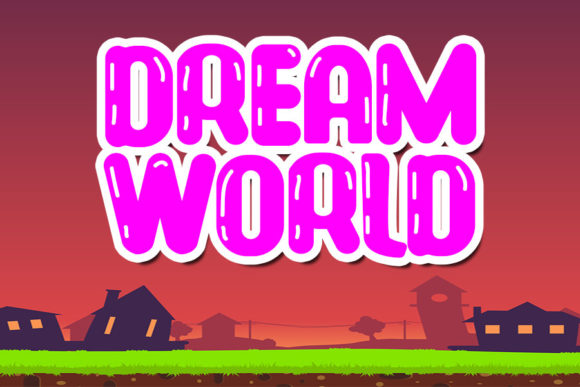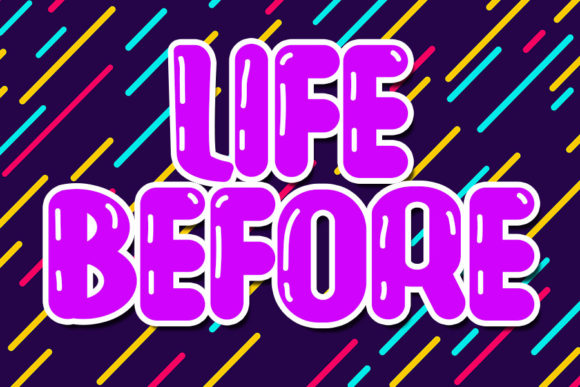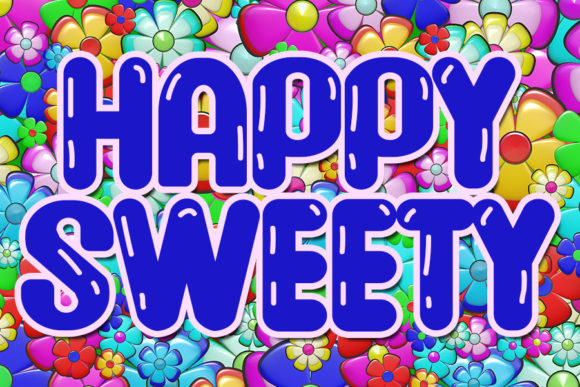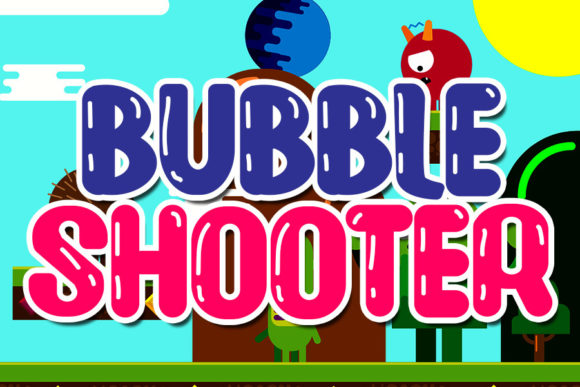
Bubble Shooter Font: The Perfect Addition to Your Fun and Playful Designs
Are you looking for a font that can add a touch of youth and joy to your designs? Look no further than the Bubble Shooter Font! This cute, fun, and friendly display font is perfect for party invitations, swimming gatherings, and any other design that requires a playful twist.
What is Bubble Shooter Font?
Bubble Shooter Font is a unique and creative typeface that is designed to bring a smile to your face. Its playful and bubbly design makes it perfect for designs that require a fun and youthful touch. The font is carefully crafted to ensure that it is easy to read and understand, making it perfect for use in a variety of designs, from party invitations to posters and flyers.
Features of Bubble Shooter Font
The Bubble Shooter Font has several features that make it a great addition to your design toolkit. Some of its key features include:
• Cute and playful design: The font has a unique and playful design that is sure to grab attention and bring a smile to your face.
• Easily readable: The font is carefully crafted to ensure that it is easy to read and understand, making it perfect for use in a variety of designs.
• Fun and youthful vibe: The font has a fun and youthful vibe that makes it perfect for designs that require a playful twist.
• Perfect for party invitations: The font is perfect for use in party invitations, swimming gatherings, and any other design that requires a touch of youth and joy.
Uses of Bubble Shooter Font
The Bubble Shooter Font is a versatile typeface that can be used in a variety of designs. Some of the most popular uses of the font include:
• Party invitations: The font is perfect for use in party invitations, birthday cards, and other celebratory designs.
• Swimming gatherings: The font is also perfect for use in swimming gatherings, pool party invitations, and other water-themed designs.
• Posters and flyers: The font can be used in posters and flyers to add a touch of fun and playfulness to your designs.
• Social media graphics: The font can also be used in social media graphics, such as Facebook posts, Instagram stories, and Twitter headers.
Why Choose Bubble Shooter Font?
There are many reasons why you should choose Bubble Shooter Font for your designs. Some of the benefits of using the font include:
• Unique and creative design: The font has a unique and creative design that is sure to grab attention and bring a smile to your face.
• Easily customizable: The font is easily customizable, making it perfect for use in a variety of designs.
• Fun and youthful vibe: The font has a fun and youthful vibe that makes it perfect for designs that require a playful twist.
• High-quality design: The font is designed to high-quality standards, ensuring that it looks great in any design.
Font Name Bubble Shooter Font
Author Mr.Soon Design
In conclusion, the Bubble Shooter Font is a fun, playful, and friendly display font that is perfect for adding a touch of youth and joy to your designs. Its unique and creative design makes it perfect for use in party invitations, swimming gatherings, and any other design that requires a playful twist. With its easily readable design, fun and youthful vibe, and high-quality design, the Bubble Shooter Font is a great addition to your design toolkit.